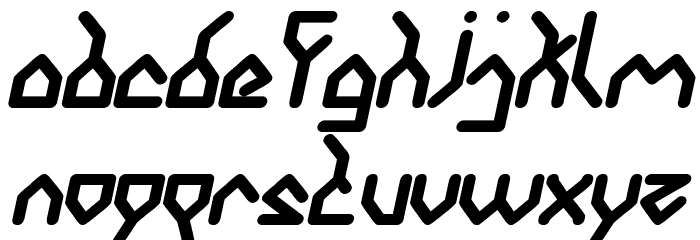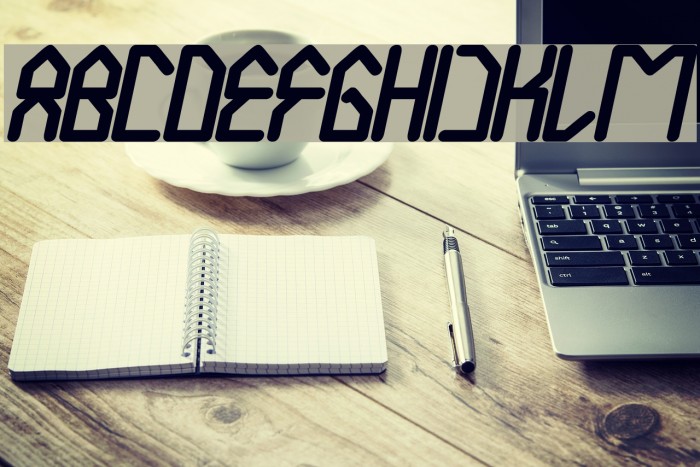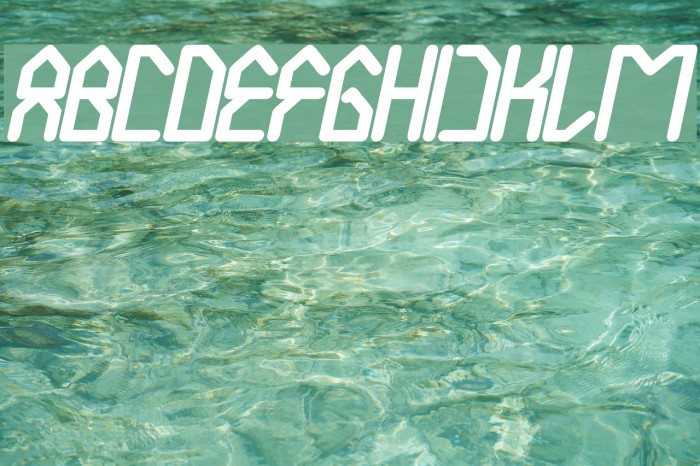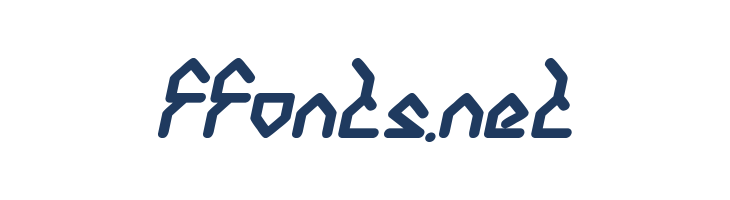
House Builder Bold Italic Font
This font exhibits a bold and italicized style with a distinctive geometric and angular design. The characters are crafted with thick strokes, giving them a strong and impactful presence. The angularity of the letters creates a modern and edgy look, making it stand out. The uppercase and lowercase letters maintain a consistent style, with the lowercase letters mirroring the angularity of the uppercase. Numbers and special characters follow the same design principles, ensuring uniformity across all glyphs. This font's boldness and unique style make it suitable for projects that require a strong visual impact.
A bold, italicized font with a geometric and angular design.
- Proposed Projects: Ideal for branding, posters, headlines, and any design needing a bold statement.